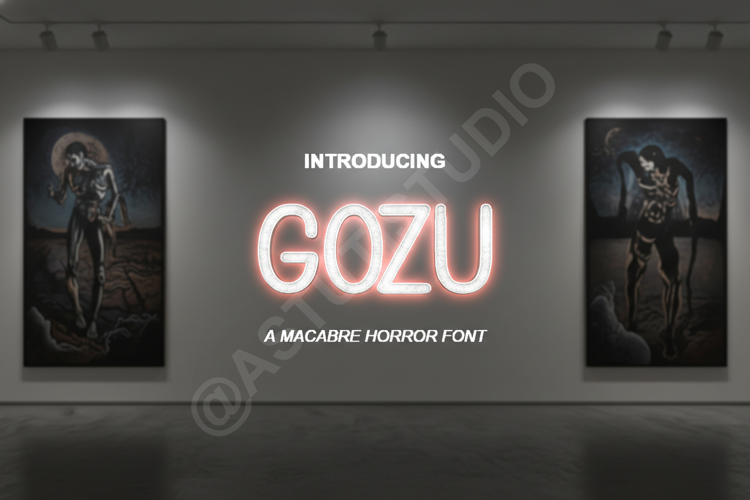
Gozu | Bold Modern Sans Serif Typeface
Gozu
Elevate your creative projects with Gozu, a premium bold sans serif typeface engineered for maximum impact and sophisticated clarity. Gozu blends geometric precision with a contemporary aesthetic, offering a versatile solution for designers who demand professional-grade typography. Its balanced proportions and clean lines ensure readability across both digital and print mediums.
- Unique Stylistic Alternates and Ligatures
- High-End Branding and Visual Identity
- Impactful Logo Design
- Editorial Layouts and Magazine Headings
- Modern Poster and Billboard Advertising
- Social Media Graphics and Content Creation
- Sleek Website Headers and User Interfaces